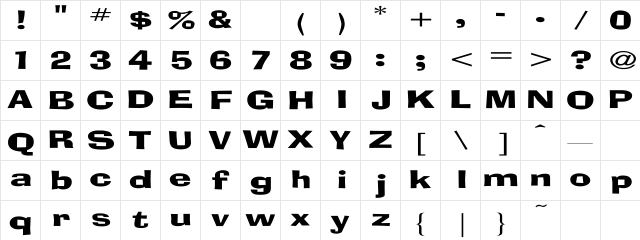
BlastMega Regular
Design Context for BlastMega
BlastMega is a composed and adaptable typeface that performs quietly and consistently across a wide range of design contexts.